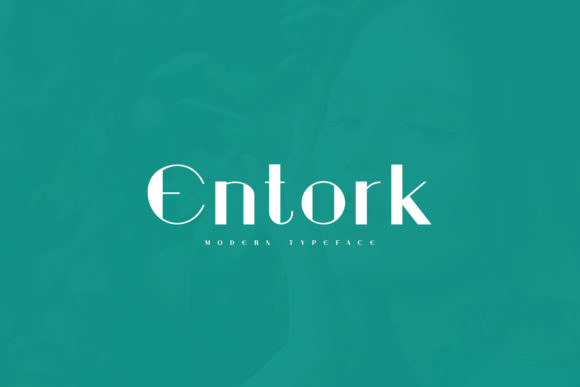
Introducing Entork Font: The Ultimate Techno Display Font for Modern Designers
In the world of typography, fonts play a crucial role in conveying the tone and aesthetic of a design. For designers and crafters looking for a cool, techno-looking display font, Entork is an excellent choice. This modern font is ideal for writing web designs, business cards, or pretty much anything else that requires a minimalist and futuristic touch.
What is Entork Font?
Entork is a sans-serif display font that exudes a sense of futurism and technology. Its clean lines, geometric shapes, and minimalist design make it perfect for designs that require a sleek and modern look. The font is highly versatile and can be used for a wide range of applications, from digital designs to print materials.
Key Features of Entork Font
- Unique and Modern Design: Entork font boasts a unique and modern design that is sure to grab attention. Its techno look makes it perfect for designs that require a futuristic touch.
- Highly Versatile: Entork font is highly versatile and can be used for a wide range of applications, including web designs, business cards, brochures, and more.
- Easy to Read: Despite its futuristic design, Entork font is easy to read, making it perfect for body text as well as headlines.
- Multilingual Support: Entork font supports multiple languages, making it a great choice for designers who work with clients from different parts of the world.
Use Cases for Entork Font
Entork font is ideal for a wide range of design applications, including:
- Web Design: Use Entork font to create modern and sleek website designs that are sure to impress.
- Business Cards: Entork font is perfect for creating business cards that require a professional and modern look.
- Branding and Advertising: Use Entork font to create eye-catching branding and advertising materials that grab attention.
- Print Materials: Entork font can be used for a wide range of print materials, including brochures, flyers, and posters.
Tips for Using Entork Font
Here are some tips for using Entork font effectively in your designs:
- Use it Sparingly: Entork font is a display font, so it’s best to use it sparingly to avoid overwhelming the reader.
- Pair it with Other Fonts: Entork font can be paired with other fonts to create a unique and interesting design.
- Experiment with Different Sizes: Entork font can be used at different sizes to create visual interest and hierarchy in your design.
In conclusion, Entork font is a cool, techno-looking display font that is perfect for modern designers and crafters. Its unique and modern design, versatility, and ease of use make it an excellent choice for a wide range of design applications. Whether you’re creating web designs, business cards, or print materials, Entork font is sure to add a touch of futurism and sophistication to your designs.